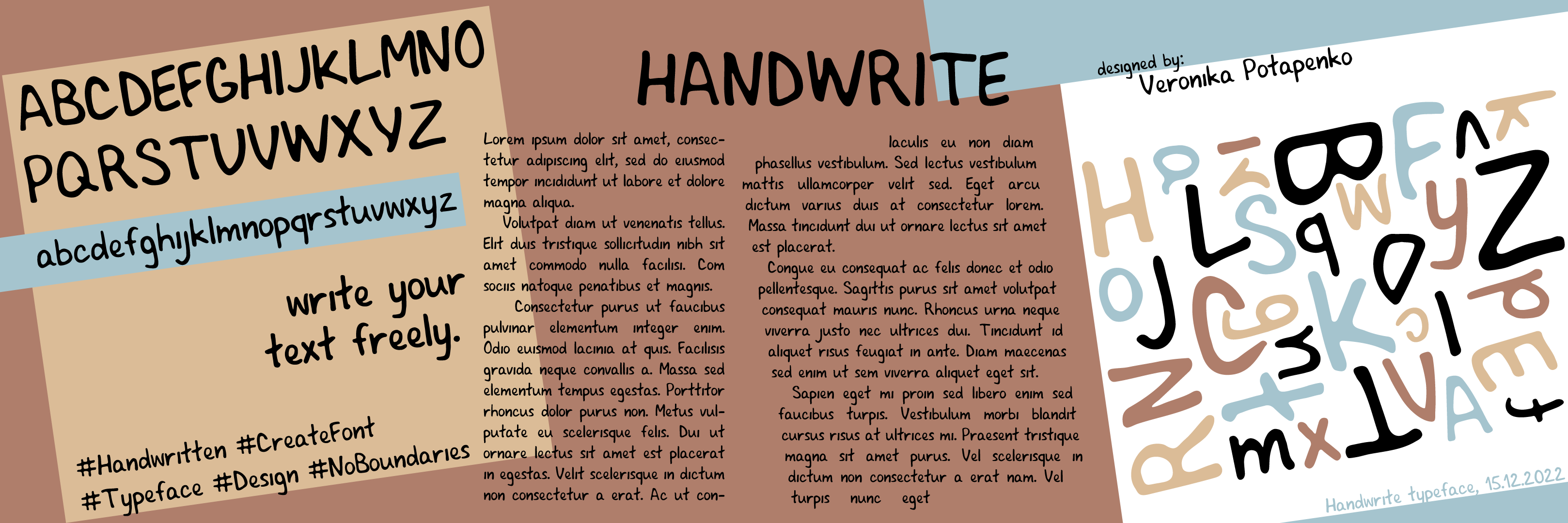
design of a custom font
project for designing a custom font "Handwrite" based on my handwriting style and its presentation in the format of an Instagram post